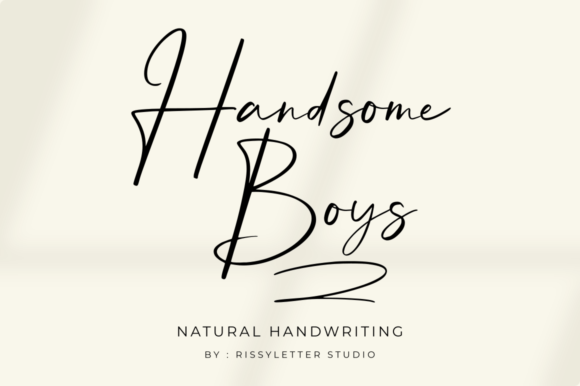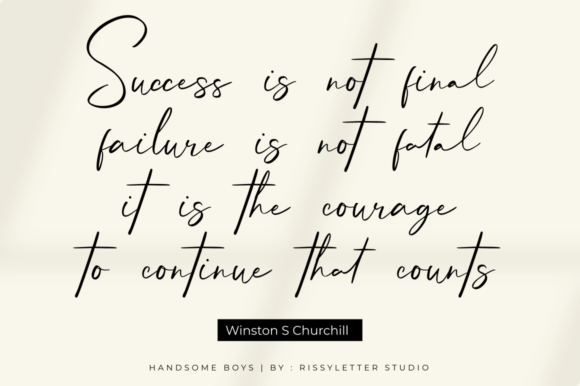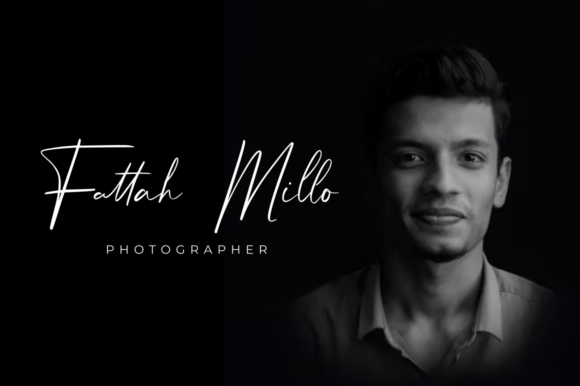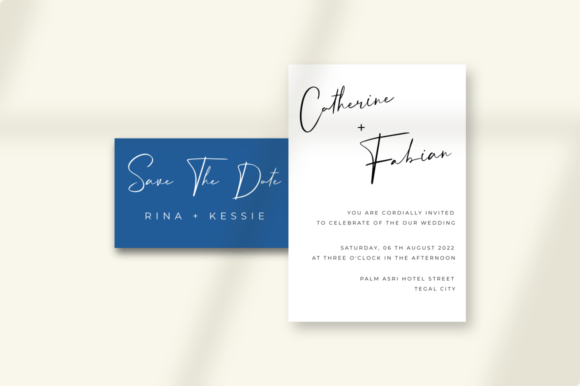
Handsome Boys Font
About the Handsome Boys Font
Meet Handsome Boys Font, a stunning font that brings a touch of elegance and professionalism to any design. Handsome Boys is a script font created for those looking for fonts for wedding invitations, photographers, signatures, modern websites, branding, etc. This font will look amazing in all your latest projects.
Handsome Boys excels in applications requiring a touch of elegant playfulness, such as wedding stationery, logos for boutiques, or short-form website copy. Its flowing script lends itself well to headings, signatures, and short quotes, but its intricate details might become illegible in extended body text or small sizes. Avoid using it for UI elements or dense paragraphs.
Pairing it with a clean sans-serif like Open Sans for body text creates a sophisticated contrast, balancing the script’s elegance. For a more modern feel, consider a geometric sans-serif like Montserrat. If a more traditional look is desired, a classic serif like Garamond would complement its character beautifully.
The font’s personality is best described as sophisticated yet approachable; modern yet classic. It projects an air of refined informality, suitable for brands that aim for a balance of style and approachability.
Handsome Boys Font Usage Examples
Handsome Boys Font Example